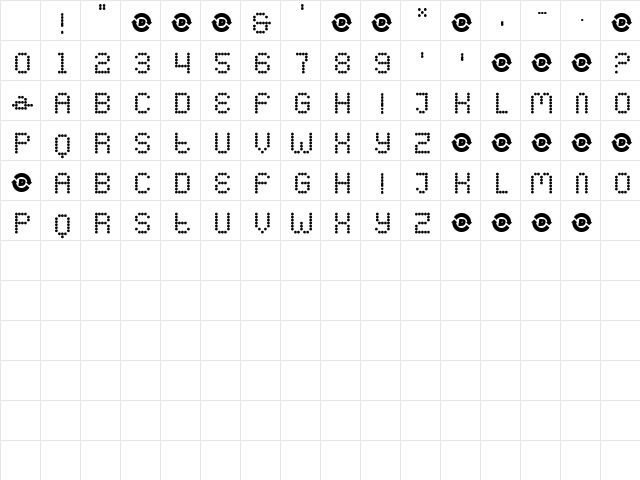
Yobbo Regular Free Font
Yobbo Regular
Design Context for Yobbo
Yobbo is a composed and adaptable typeface that performs quietly and consistently across a wide range of design contexts.